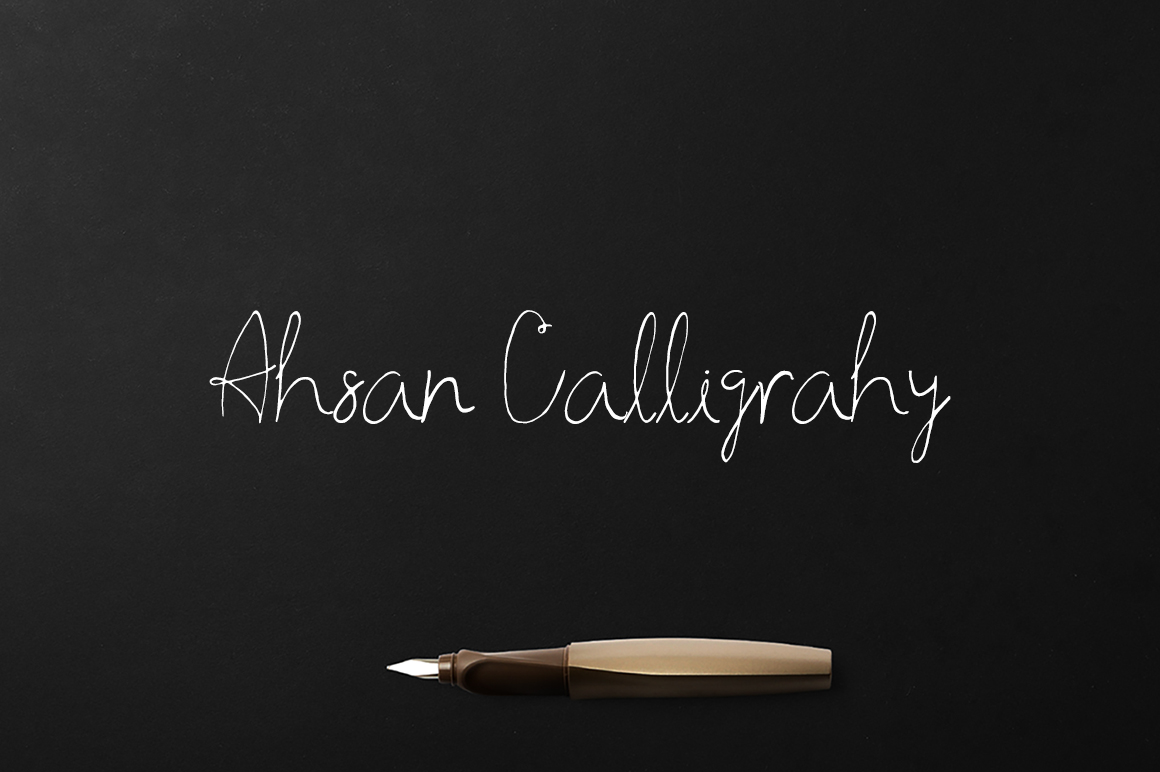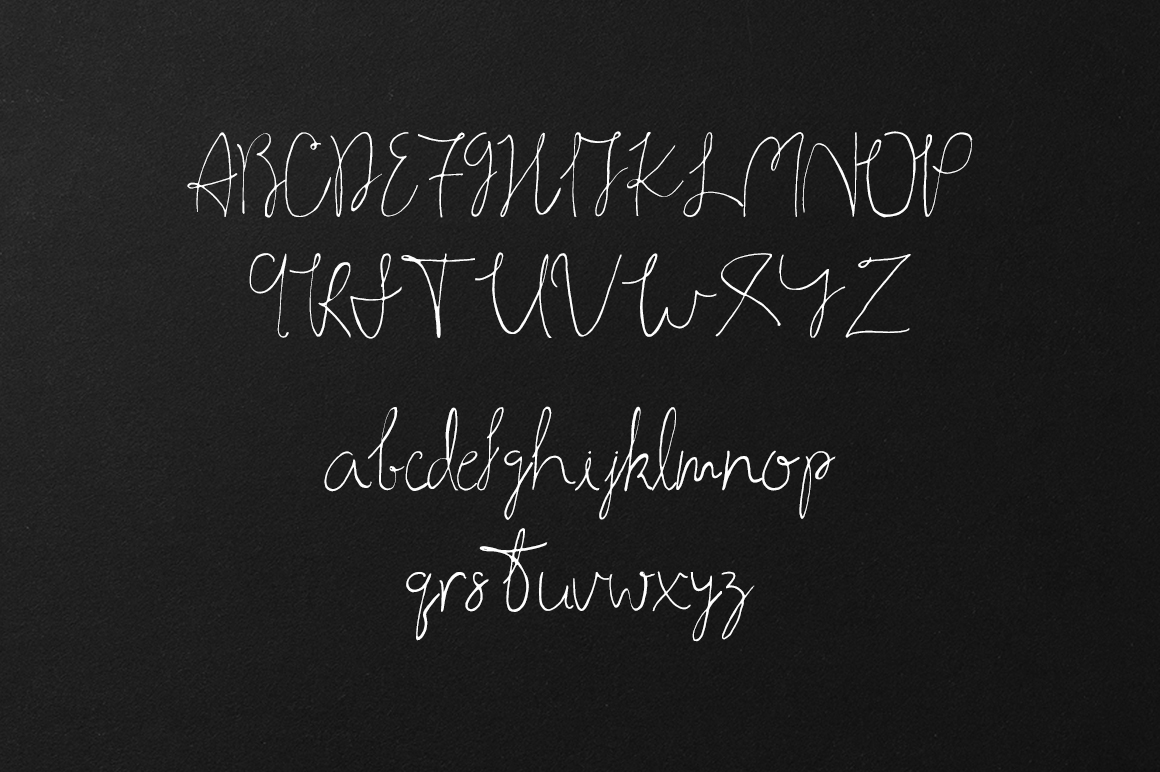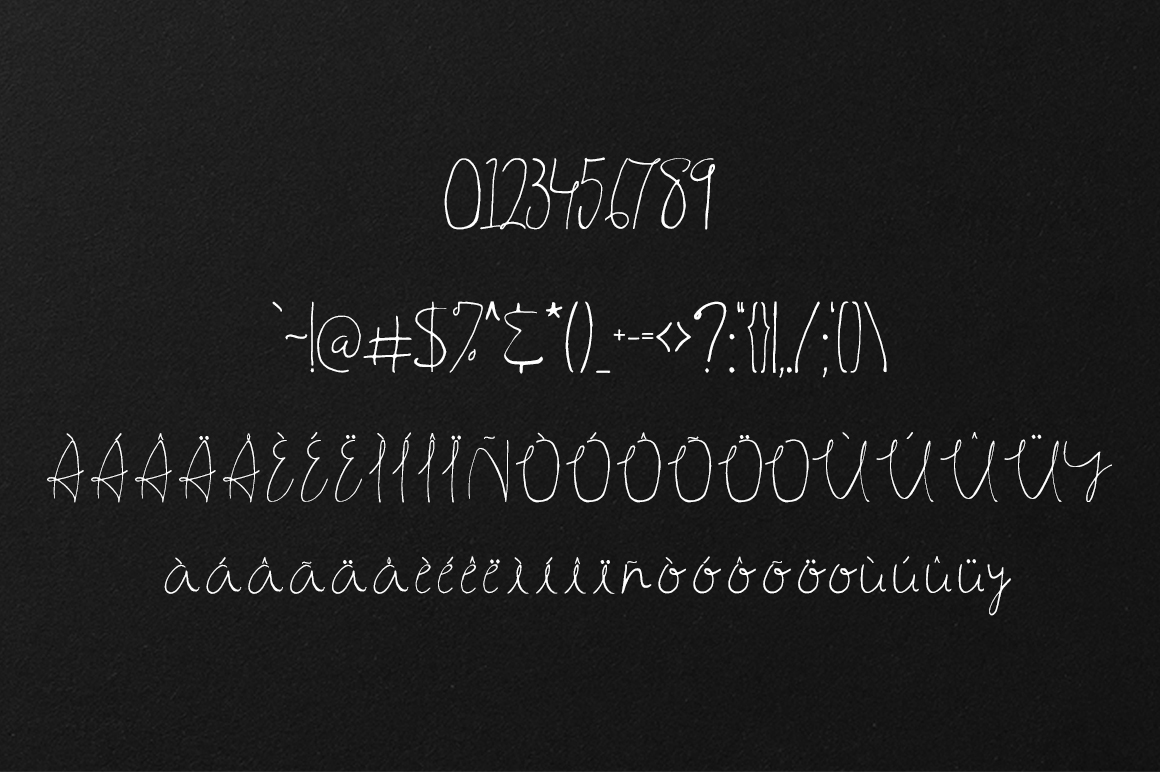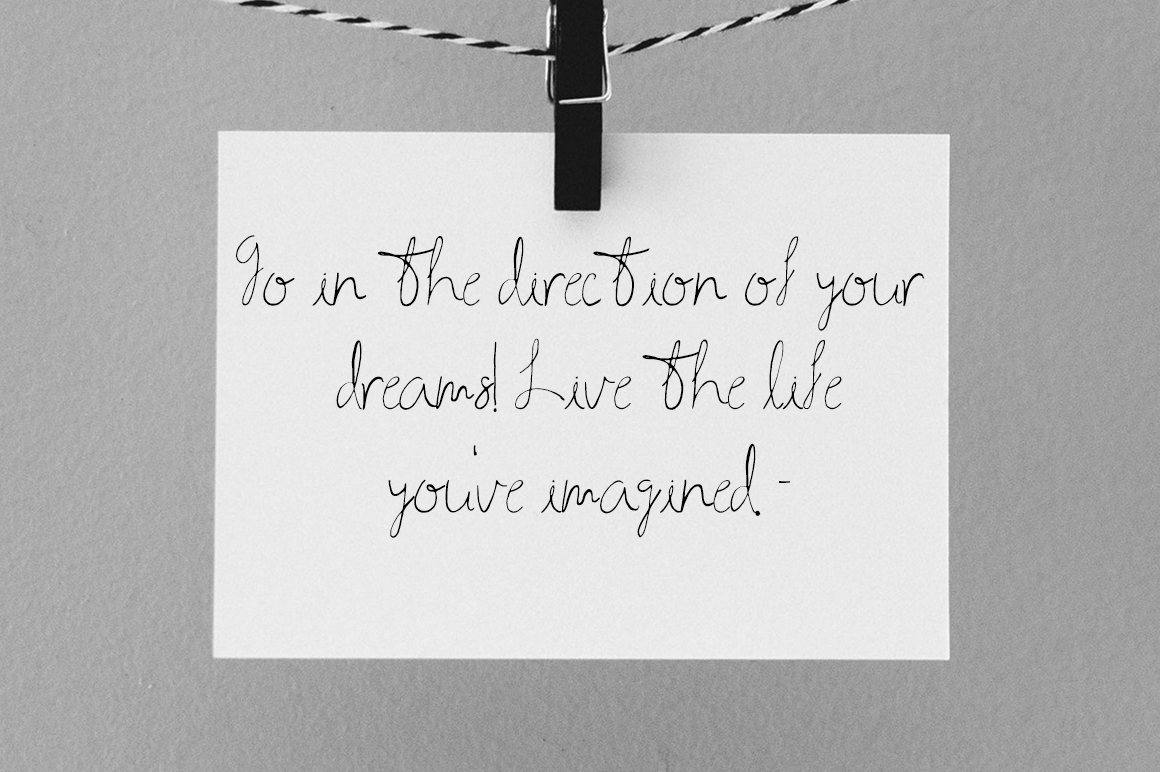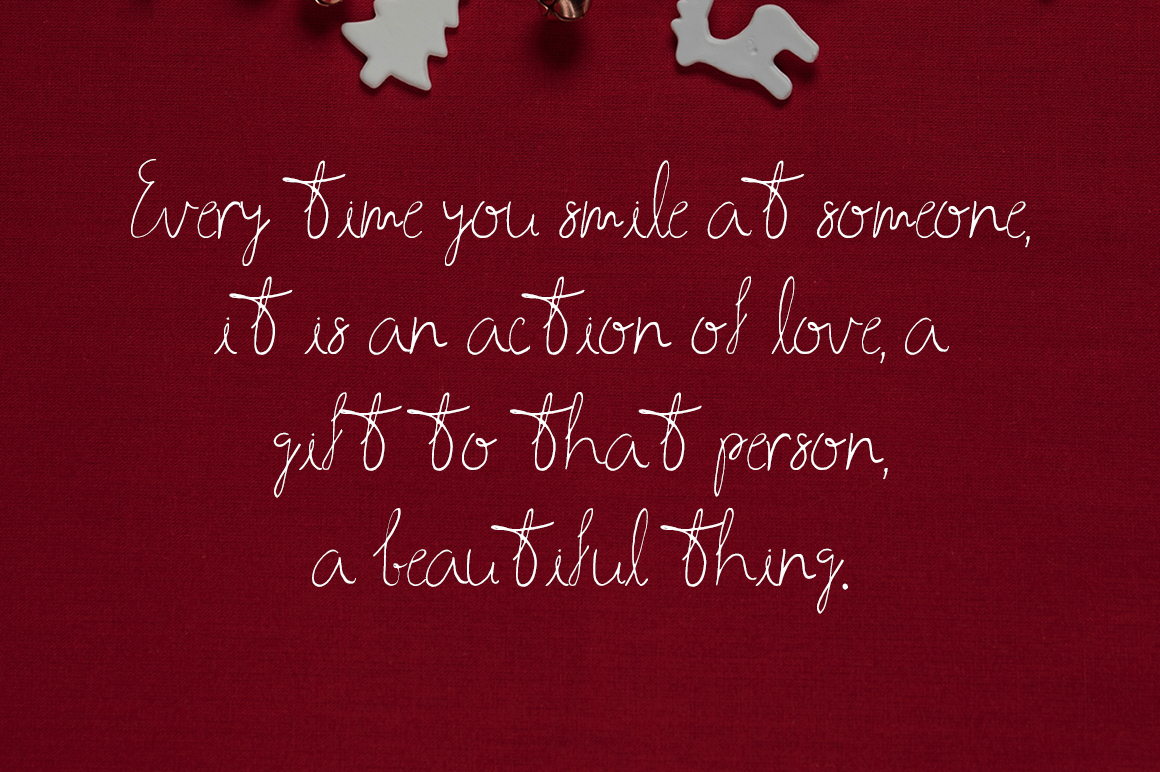
Ahsan Calligraphy Font
About Ahsan Calligraphy Font
Ahsan Calligraphy is a script font with contemporary, enlightened accents. It includes full set of gorgeous uppercase and lowercase letters, numerals, a large range of punctuation and ligatures. This script is perfect for a wide range of designs!